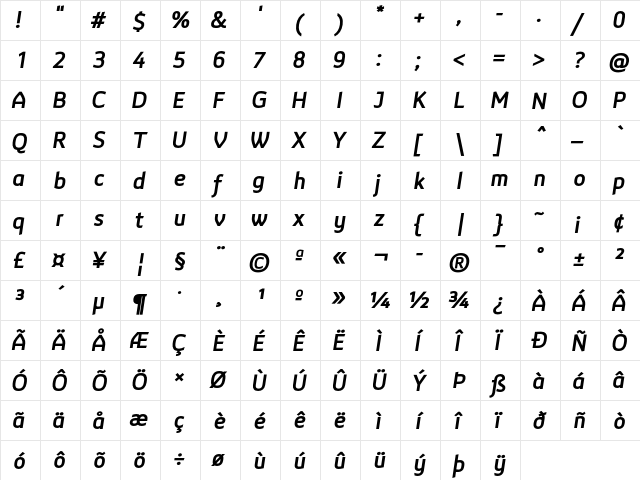
LT Reponse Bold Italic
Bold Italic · Daniel Lyons Entertainment / LyonsType Dan P. Lyons ·
Foundry Daniel Lyons Entertainment / LyonsType
DesignerDan P. Lyons
Design Context for LT Reponse Typeface
LT Reponse offers clean, dependable letterforms without strong stylistic allegiance, making it a practical choice for designers who need flexibility. Its italic angle brings a sense of urgency and motion to the letterforms. Its bold stroke weight gives it real presence on the page.
Pro Tip: Use LT Reponse for emphasis, pull quotes, and subheadings where its slanted energy can add rhythm to the layout.